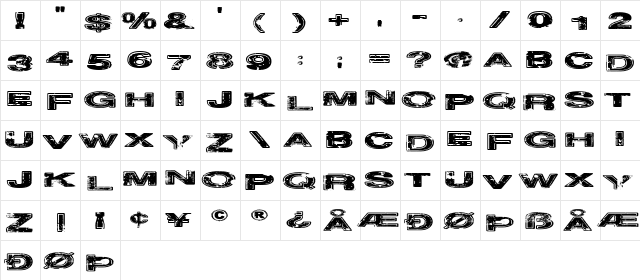
Project Z Regular
| Foundry | David Kerkhoff |
Design Context for Project Z Typeface
Project Z is a composed and adaptable typeface that performs quietly and consistently across a wide range of design contexts.